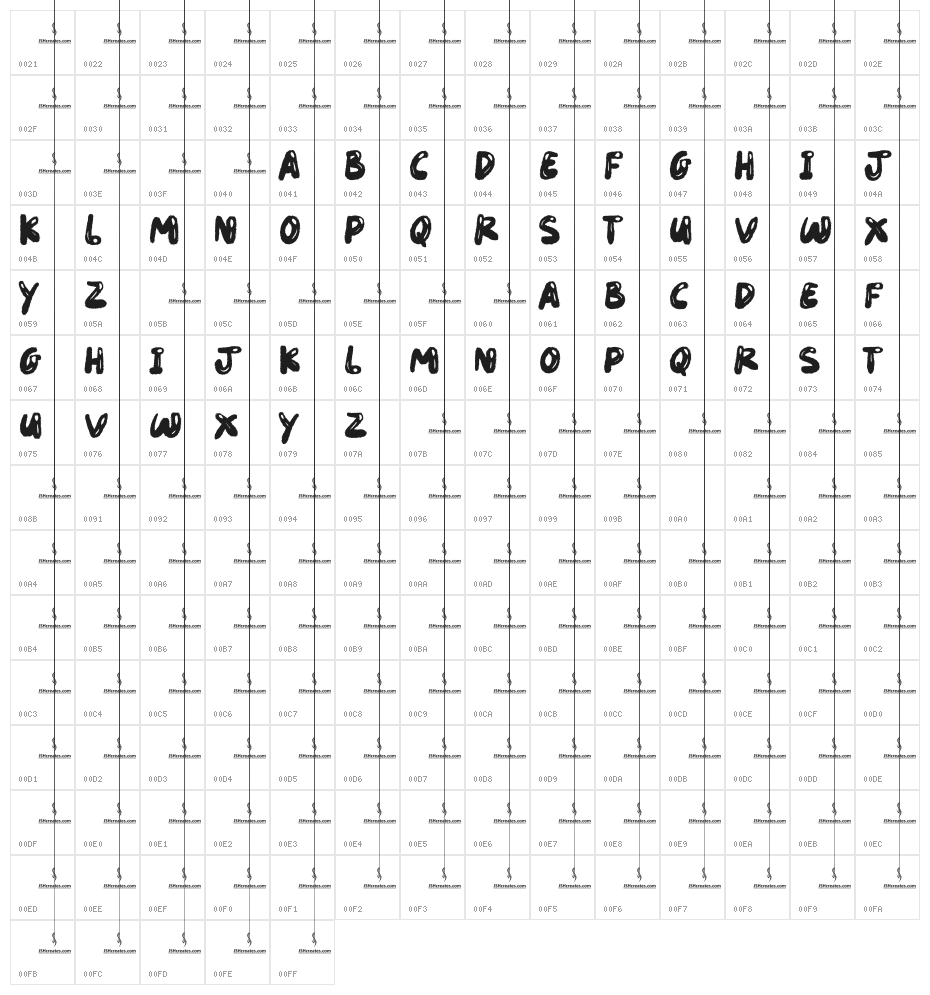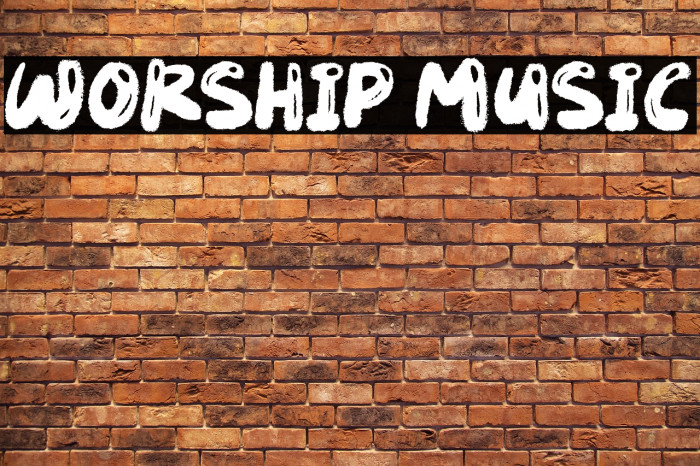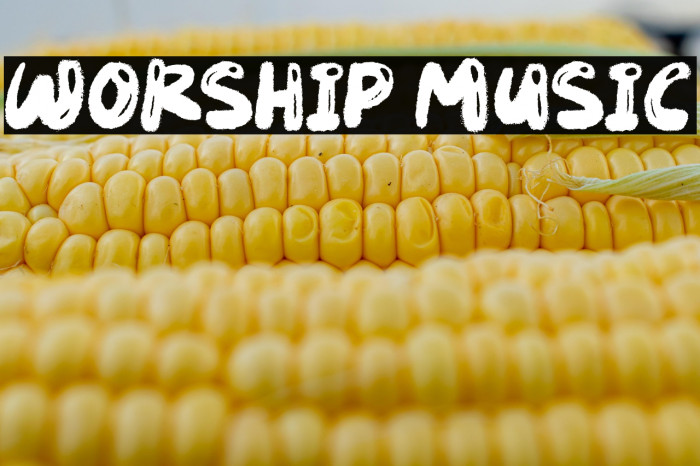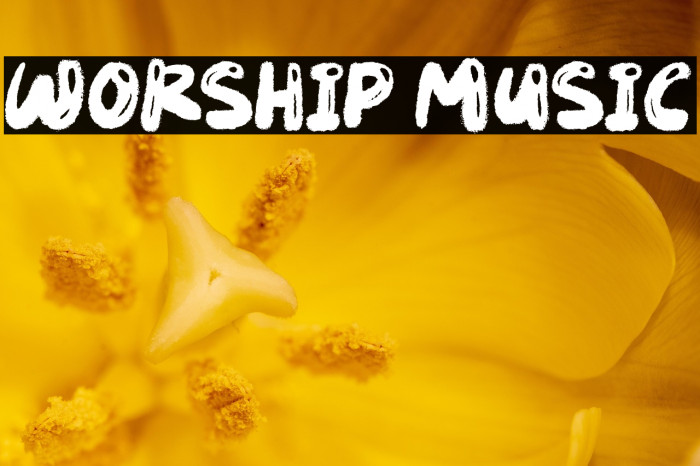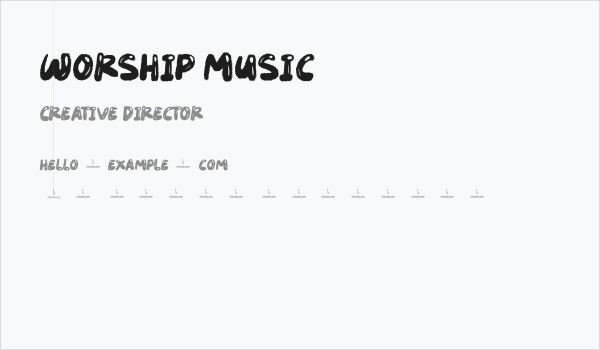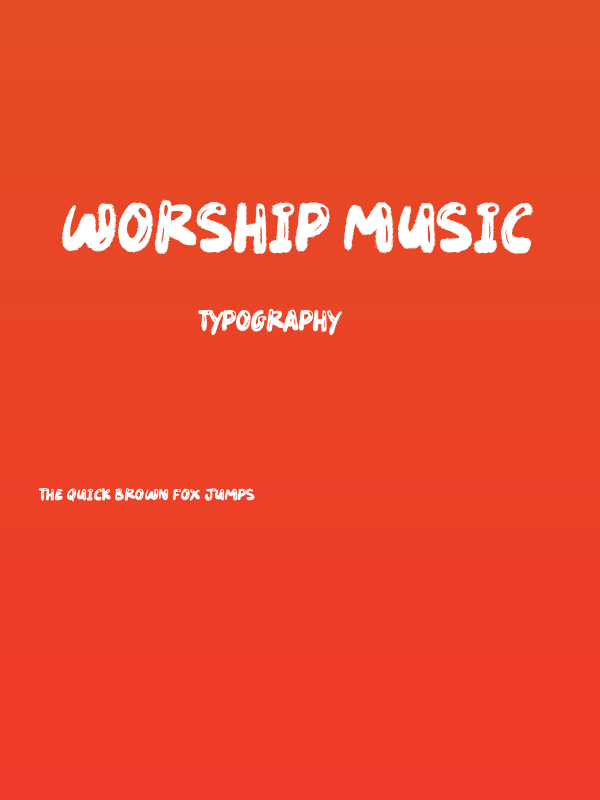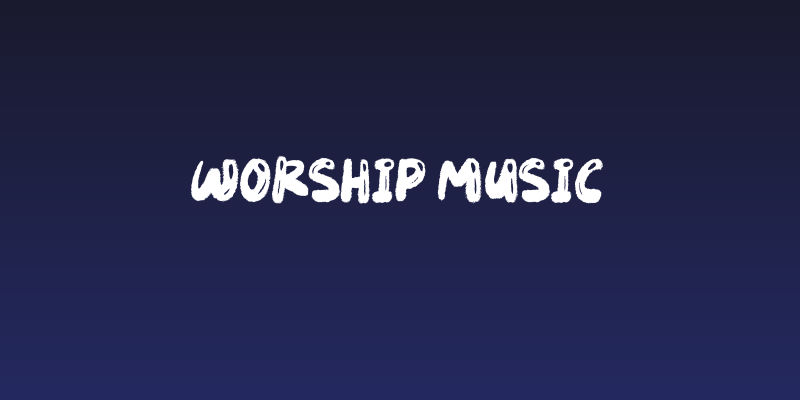
Worship Music Font
Worship Music Description
This font features a bold, brush-like style with a hand-drawn appearance. The characters are thick and rounded, giving them a playful and energetic feel. The strokes are uneven, adding a sense of movement and dynamism. The uppercase letters are consistent in height, while the lowercase letters maintain a similar width, creating a harmonious balance. This font is ideal for projects that require a personal touch or an artistic flair. Its bold presence makes it suitable for eye-catching designs.
| Proposed Projects | Ideal for posters, album covers, branding, and creative projects that need a dynamic and artistic touch. |